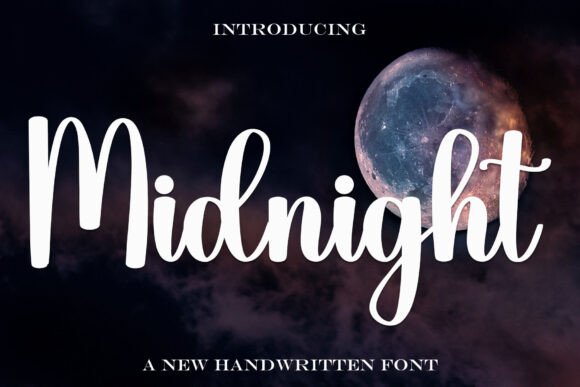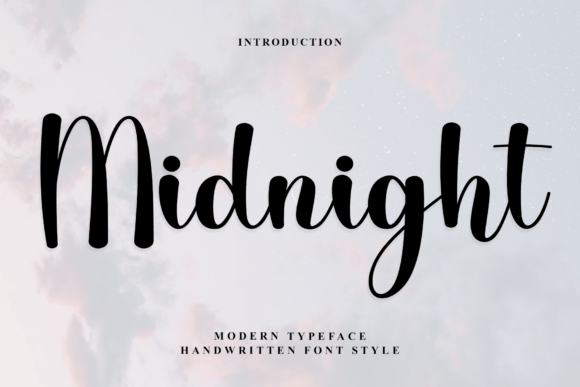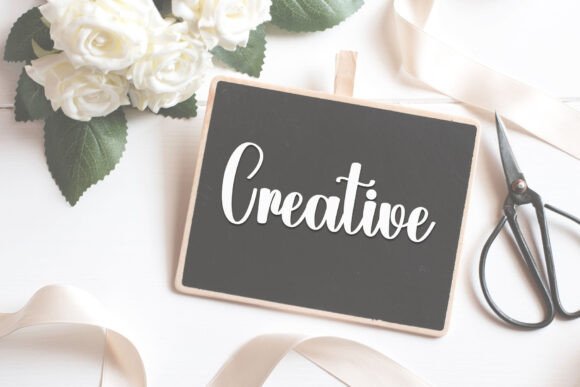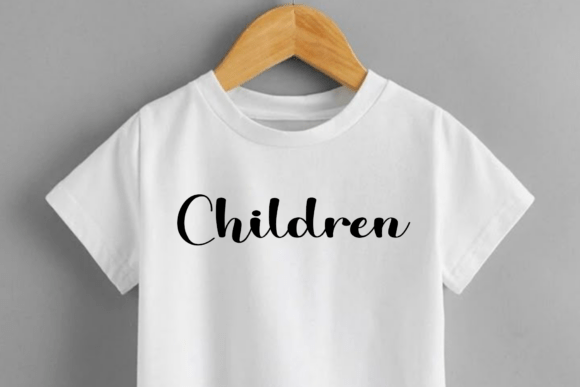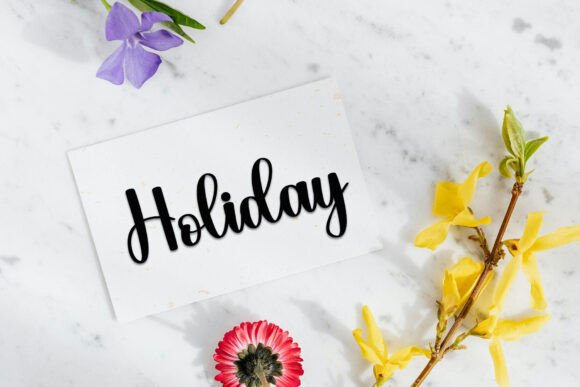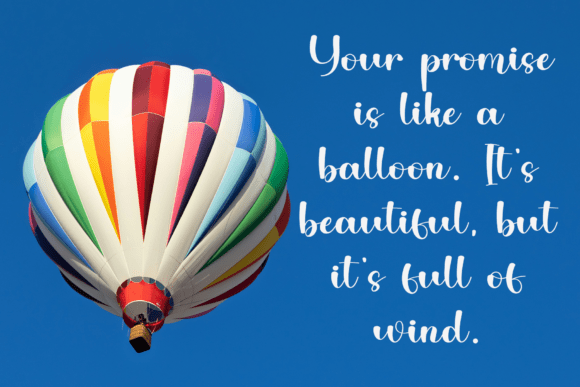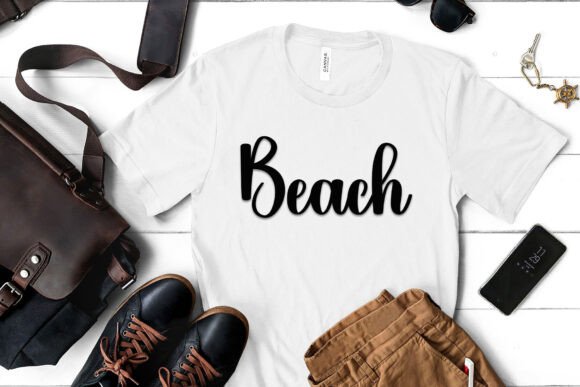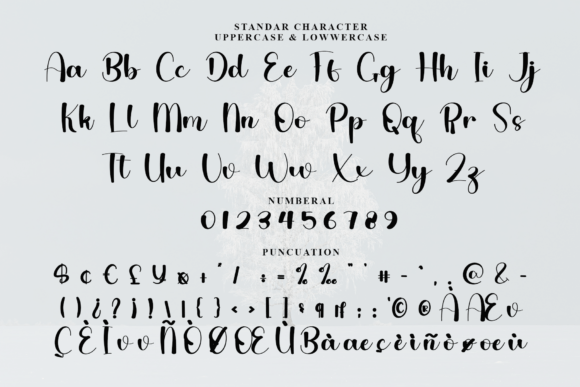
Midnight Font: A Delicate Handwritten Script for Invitations
About the Midnight Font
Unleash your creativity with Midnight Font, a versatile font perfect for a wide range of applications. Midnight is a delicate handwritten font carefully crafted for a cool and unique design. This font can be used to write letters, invitations, food products, titles, and more.
Midnight’s delicate nature makes it ideal for short text applications like logos, headlines, and invitations where its handcrafted charm can shine. It works exceptionally well for branding projects focused on artisanal products, boutique businesses, or events with a romantic or whimsical feel. Avoid using Midnight for large blocks of body text or UI elements; its intricate detail can become difficult to read at smaller sizes.
Pairing Midnight with a clean sans-serif like Open Sans for body copy creates a strong contrast, allowing the handwritten elegance of Midnight to stand out. Alternatively, a classic serif such as Garamond can add a touch of sophistication and timeless appeal. For a more playful feel, consider pairing it with a geometric sans-serif like Futura.
Midnight’s overall personality is elegant yet approachable. Its delicate strokes convey a sense of warmth and personality without being overly playful or informal. This makes it particularly well-suited for brands that seek to communicate sophistication and a handcrafted aesthetic.
Midnight Font Usage Examples
Midnight Font Example